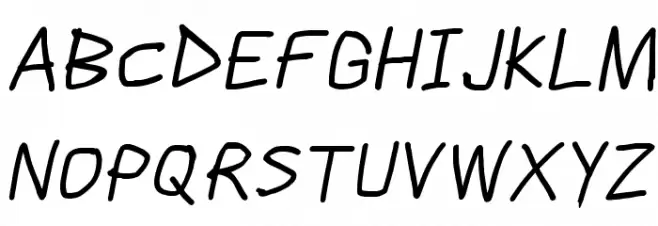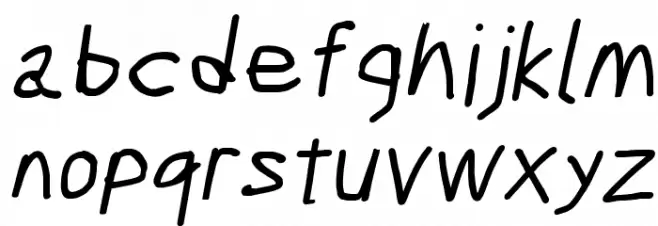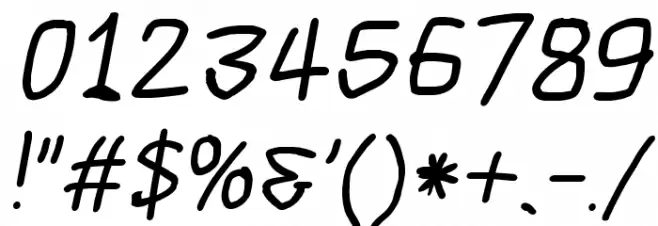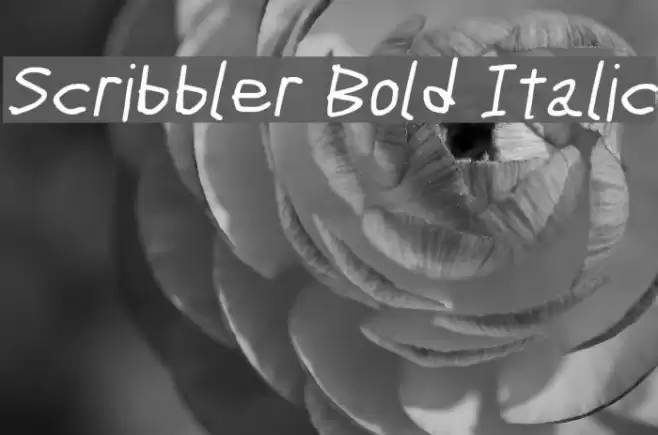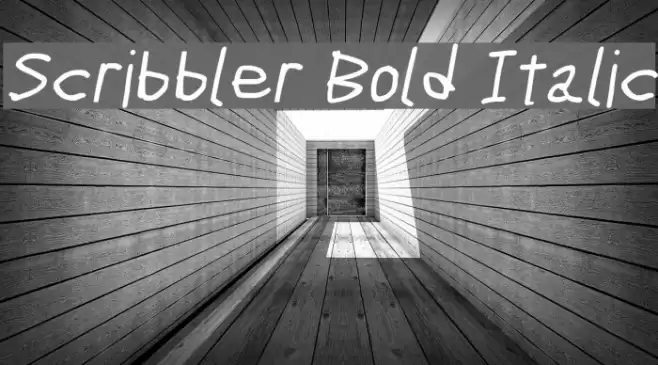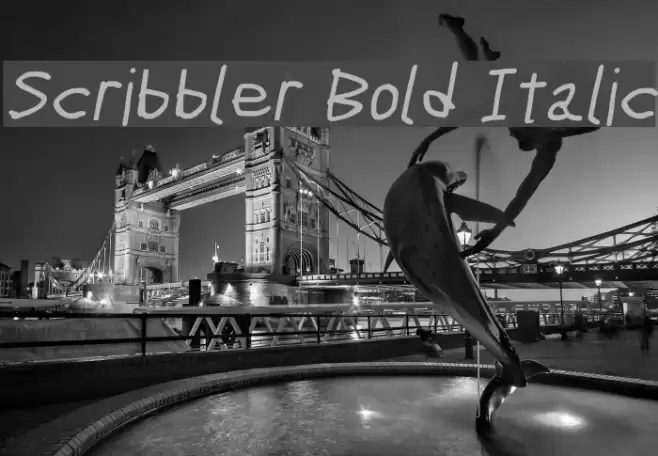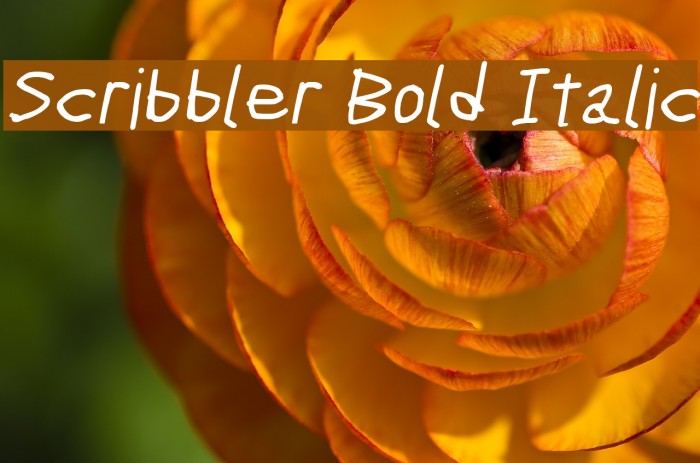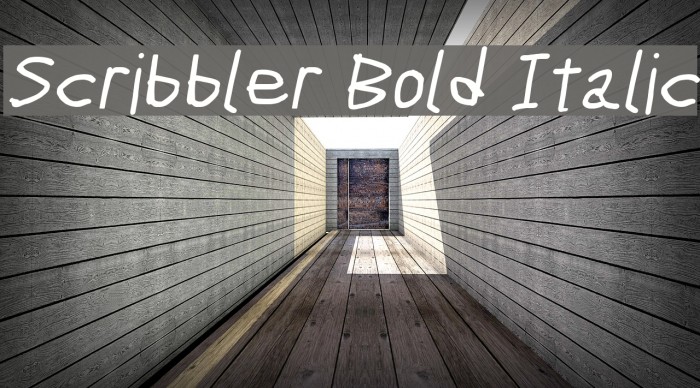
Scribbler Bold Italic
This font exudes a playful and casual handwritten style, characterized by its bold and italicized strokes. The letters have a slightly irregular form, giving them a spontaneous and lively appearance. The uppercase and lowercase letters maintain a consistent flow, while the numbers and special characters complement the overall aesthetic. The strokes are thick and confident, with a slight slant that enhances the informal and dynamic feel. This font is perfect for projects that require a personal touch or a creative flair, such as invitations, greeting cards, or artistic posters.
A bold, italic handwritten font with a playful and casual style.
- Proposed Projects: Ideal for invitations, greeting cards, artistic posters, and creative projects.
- Overall Style: Casual, Playful
- Use Case: Headlines, Creative projects, Personal notes